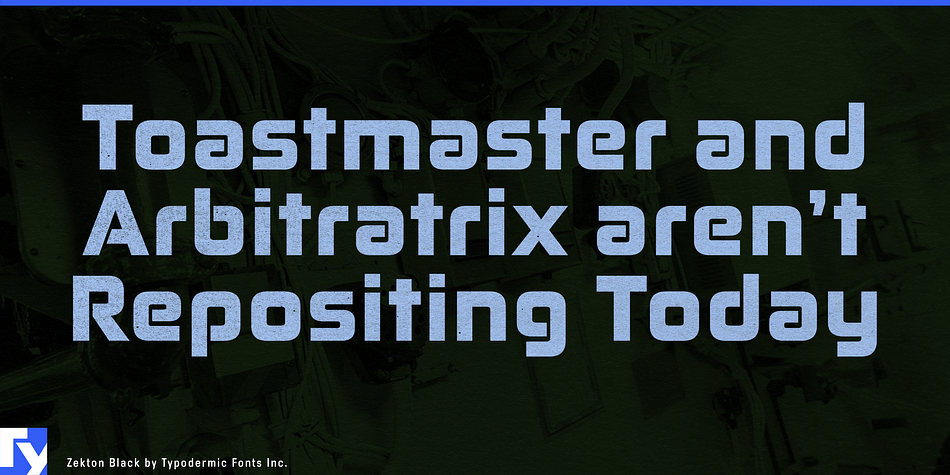
Zekton
Zekton is a sans serif font family. This typeface has forty-two styles and was published by Typodermic Fonts Inc.
Welcome to the world of Zekton. This typeface is not for the faint of heart. With its square letterforms and sharp edges, Zekton brings a brave, industrial look to your designs. The uniform line widths and smooth curves give this typeface a serious and professional feel, perfect for the world of consumer electronics.
When you use the Zekton typeface, you’ll bring a fresh and modern AM/FM portable stereo fragrance to your designs. It’s like having a pocketful of transistors at your fingertips, ready to power up your creativity. And with a twinkle in its eye, Zekton promises to add a touch of excitement to every project.
Zekton is available in seven weights, two widths, and italics for a total of 42 styles. This versatility makes it easy to find the perfect fit for your project. Whether you’re designing a sleek product brochure, a cutting-edge website, or a tech manual, Zekton has the style and range to help you stand out.
So if you’re ready to take your designs to the next level, give Zekton a try. It’s the typeface that’s built to handle the toughest industrial challenges, and it’s ready to help you make a bold statement in the world of consumer electronics.